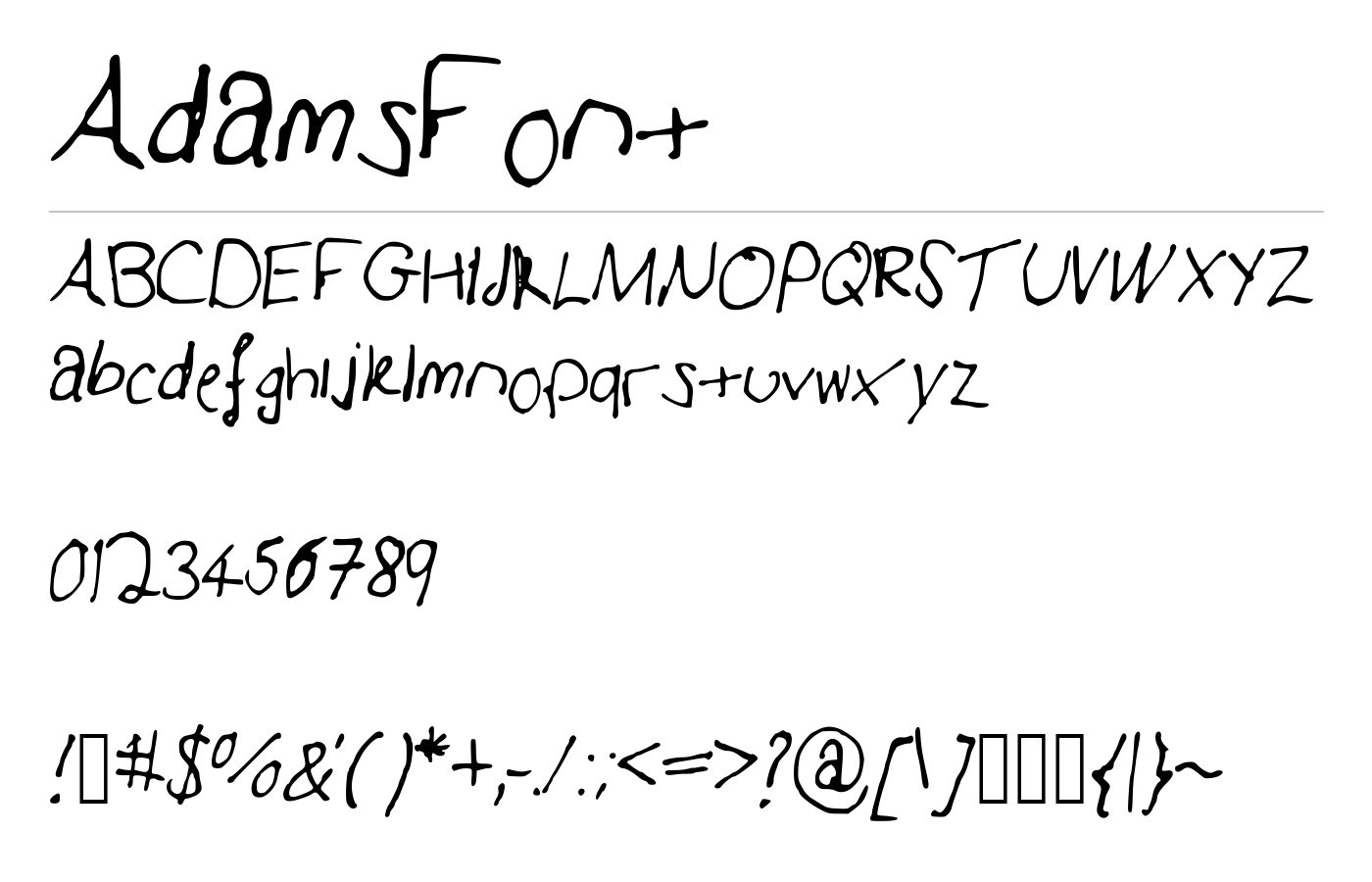
AdamsFont is a quirky, hand-drawn sans serif font with an informal, playful character. Its irregular stroke widths and uneven letterforms give it a lively, personal feel, making it perfect for creative projects, casual branding, and fun headlines that want to stand out with personality. This font works well where a human touch and artistic flair are needed rather than strict formality.
AdamsFont
About AdamsFont